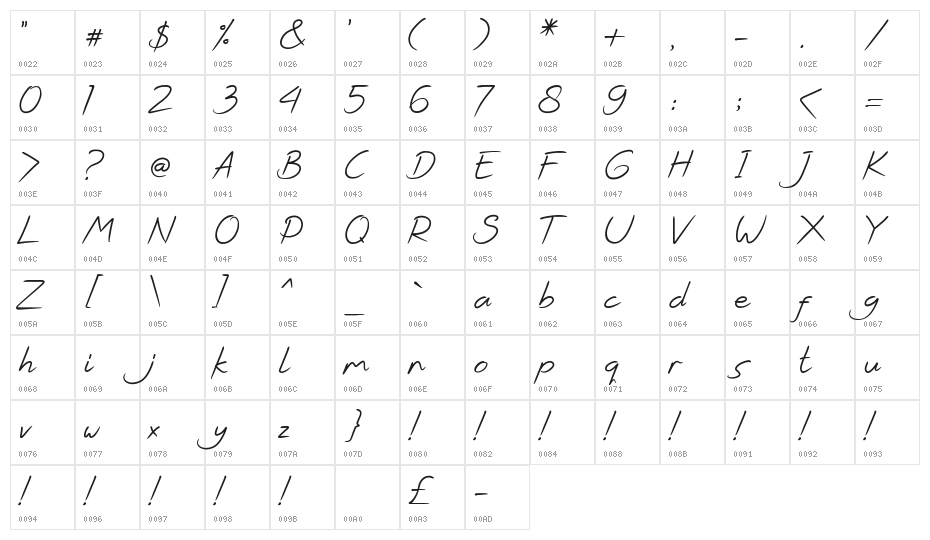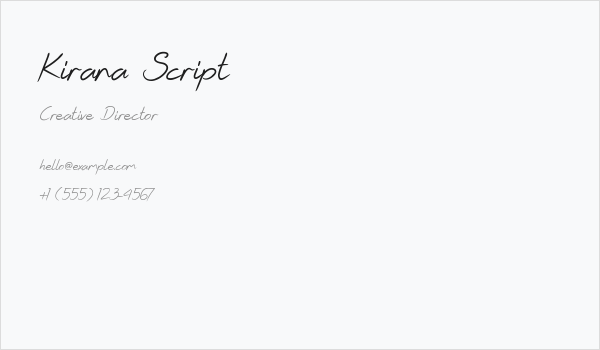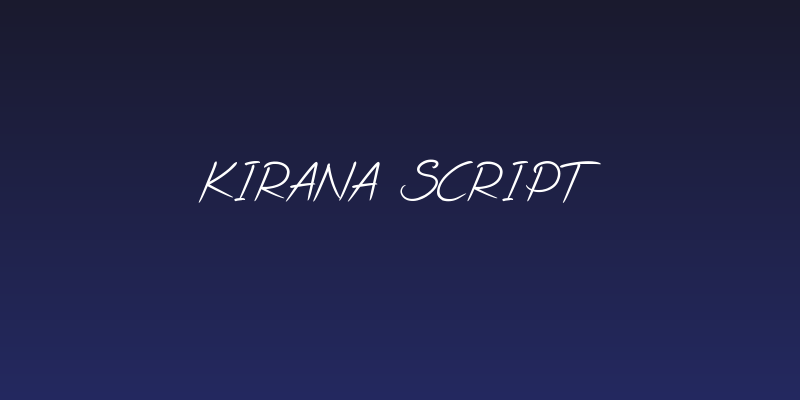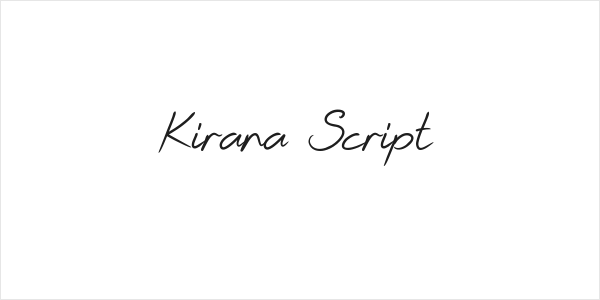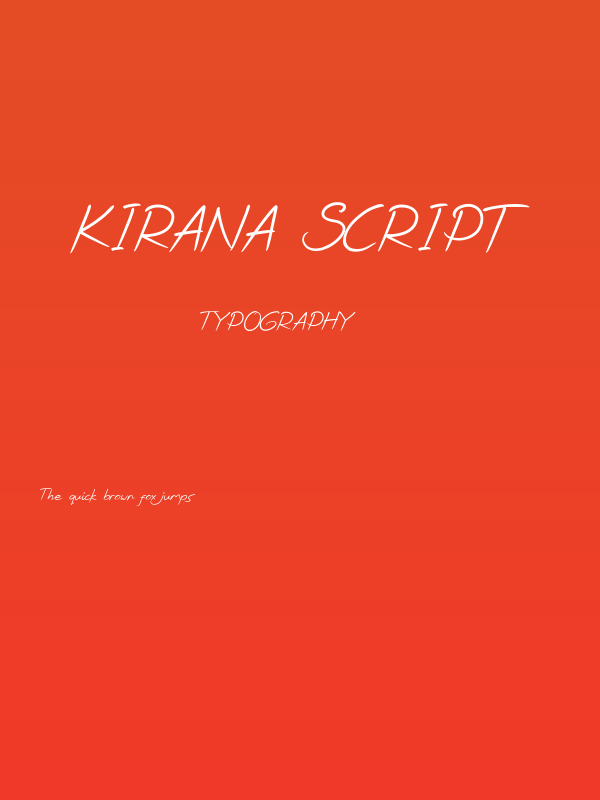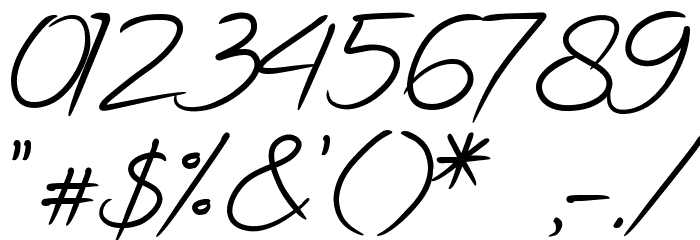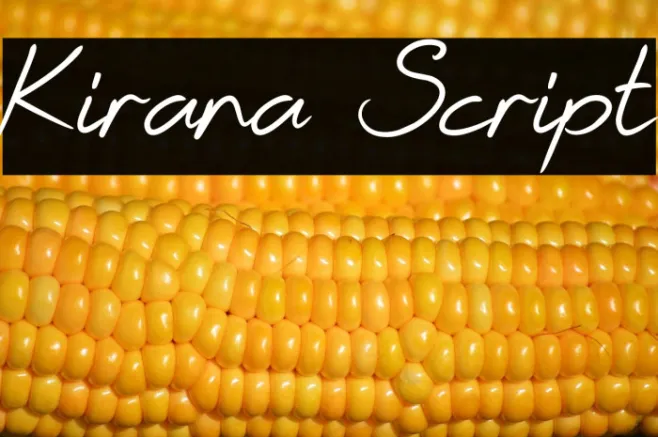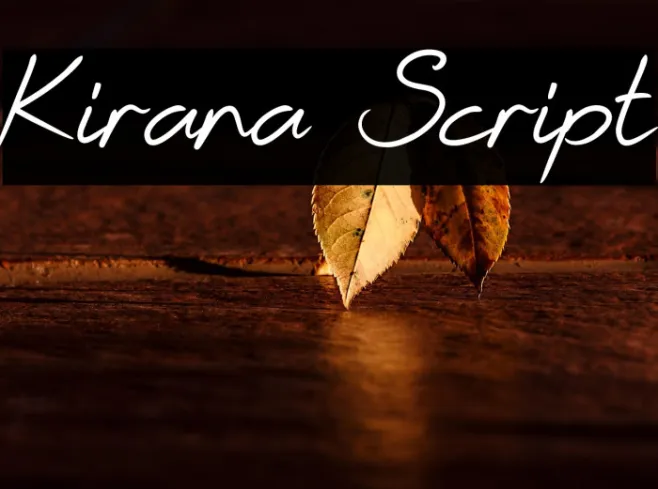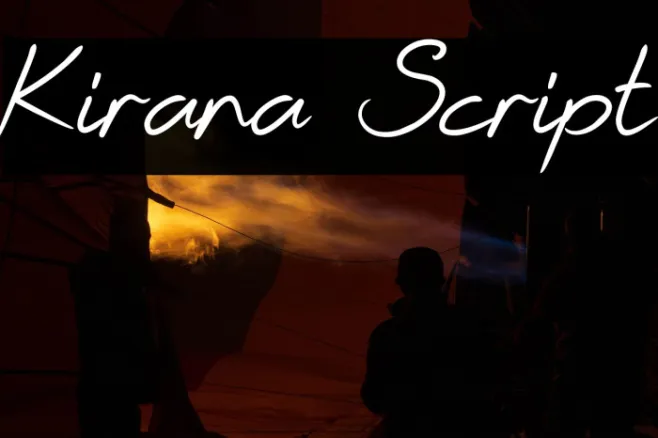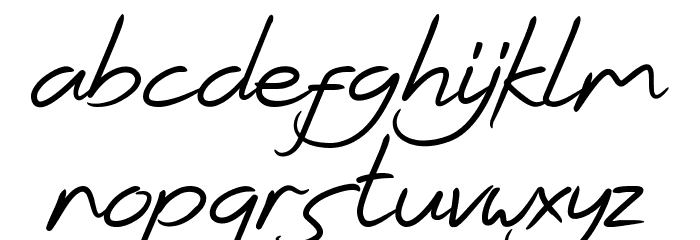
Kirana Script Font
Kirana Script Description
This font features a fluid and elegant script style, characterized by its smooth, flowing lines and a handwritten appearance. The uppercase letters are slightly slanted, adding a dynamic and lively feel, while the lowercase letters maintain a consistent rhythm and balance. The numerals are designed to complement the overall script style, with curves that mirror the letters. Special characters are seamlessly integrated, maintaining the font's cohesive look. This font exudes a sense of sophistication and creativity, making it ideal for projects that require a personal touch.
| Overall Style | Elegant, Creative |
| Proposed Projects | Ideal for wedding invitations, greeting cards, personal branding, and creative projects that require a personal touch. |